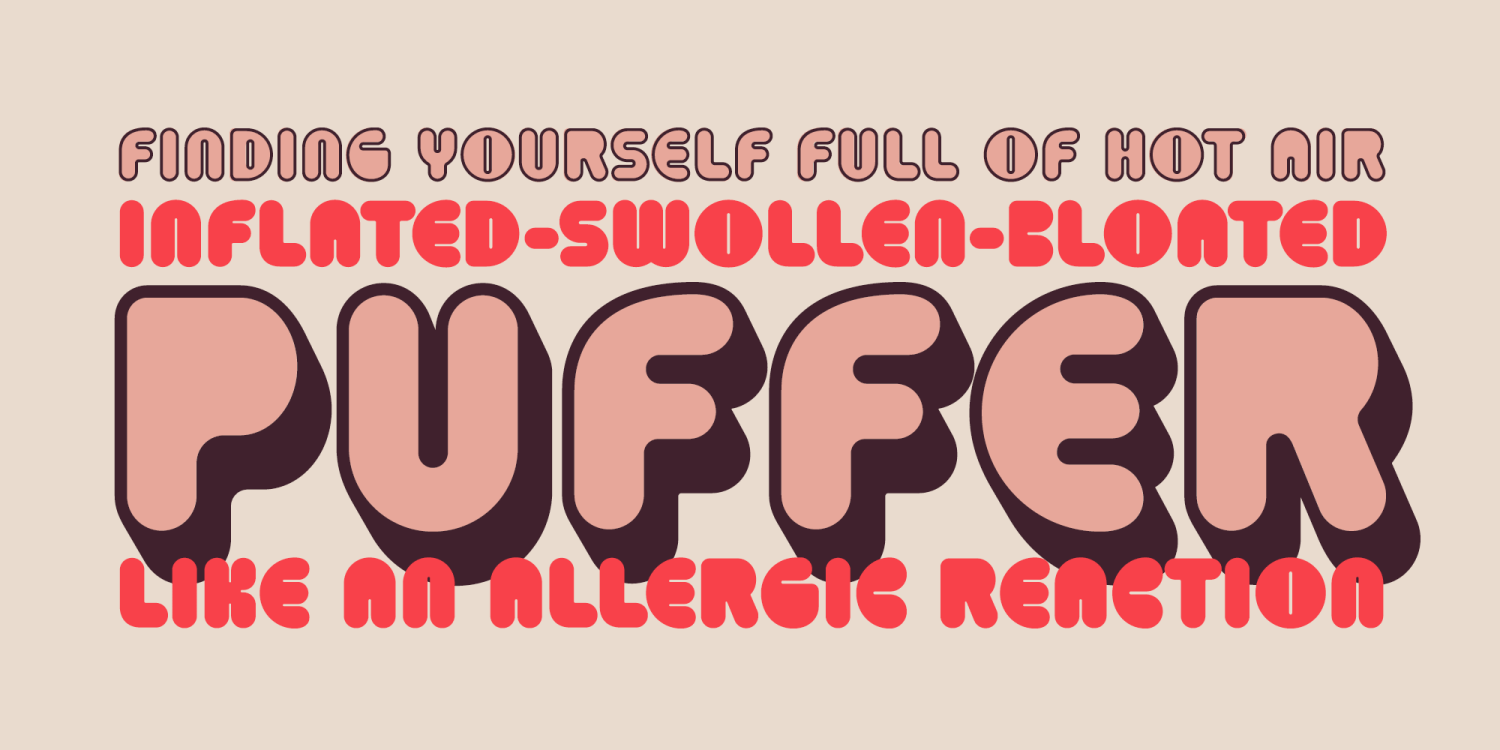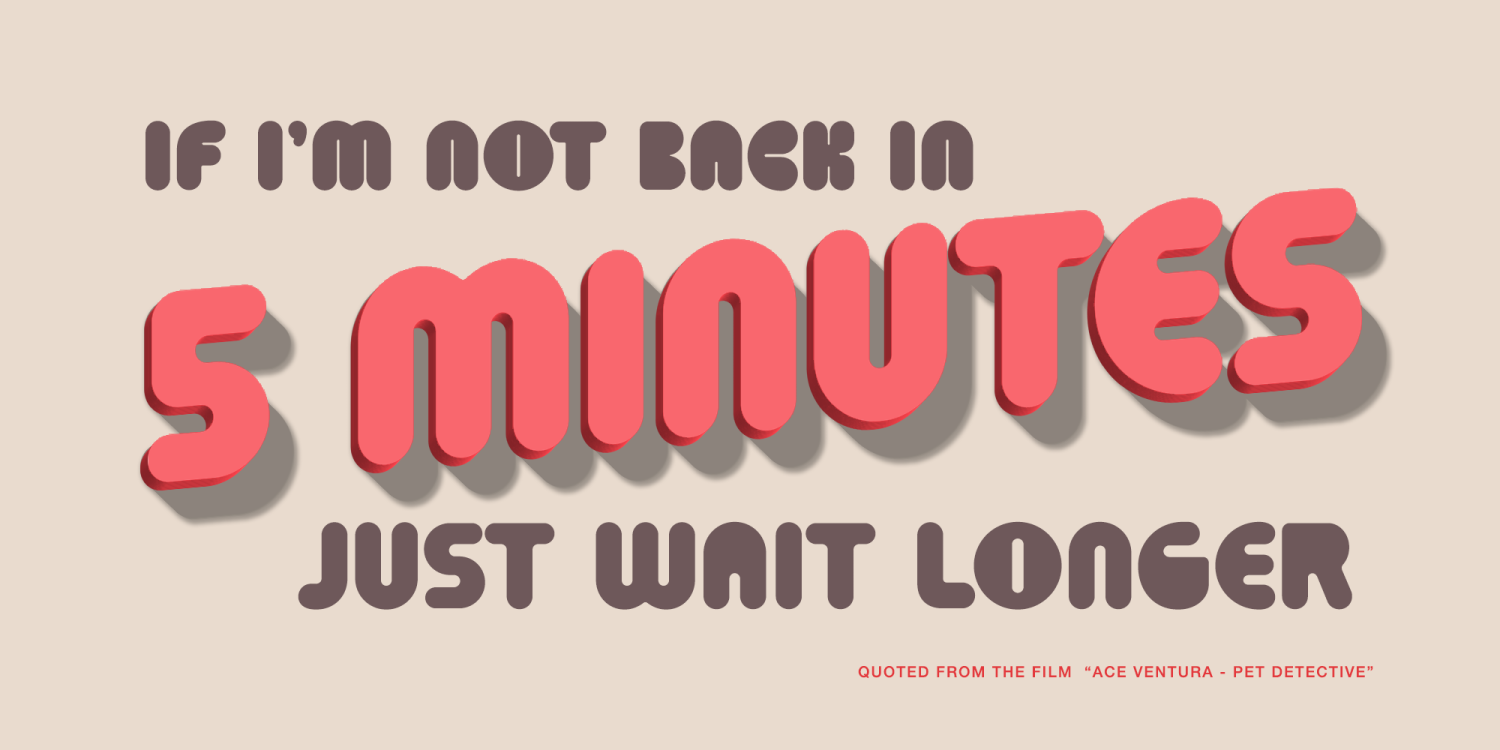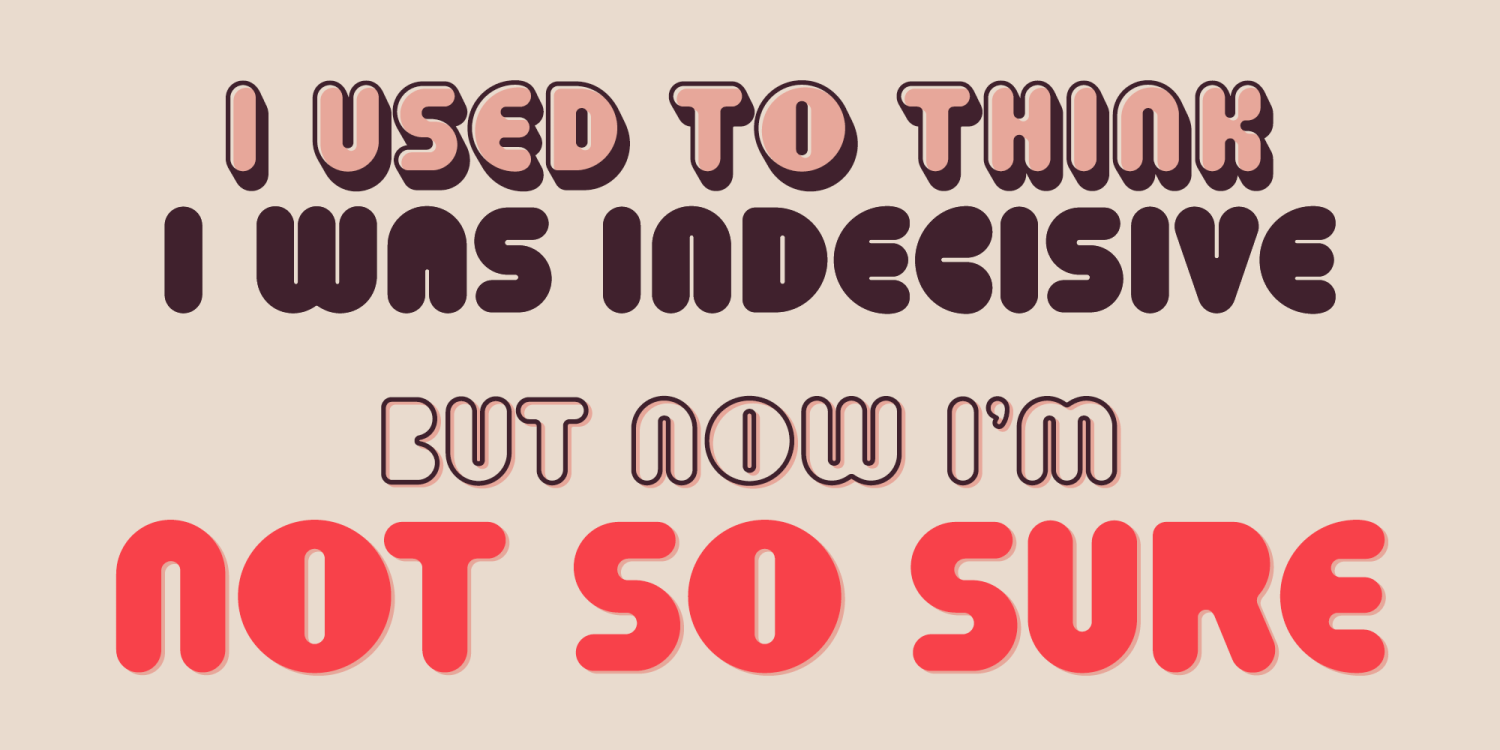
Puffer PB
A charmingly bloated graphic typestyle, Puffer PB started as a digitization of a film typeface family called Burton by LetterGraphics, originally created by Brian Burton. It came with Light, Bold, Outline, and Shadow variants, which are all meticulously recreated for your typesetting pleasure and preserved for typographic oddity history. Brian Burton had only created the original Bold style, and LetterGraphics added the other variants.
The various styles don't overlay precisely lined up as shown in some of the poster graphics, these were manually tweaked to show potential playful options to combine the various styles (but will require some manual intervention.)
Riding the line of legibility, while flaunting a futuristic yet also retro vibe, any or all of the quirky Puffer PB family makes for a little spice in your type library.